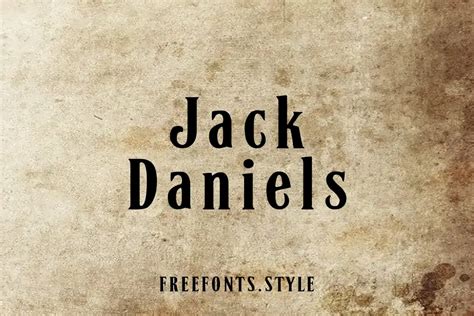
Fonts Jack Daniels. Web jack daniels is a great typeface, this serif typeface supports many international languages. Click to find the best 1 free fonts in the jack daniels style.
Every font is free to download! The jack daniel’s is basically a sour mash tennessee whiskey. Web jack daniels is a great typeface, this serif typeface supports many international languages. Web jack daniels font. Click to find the best 1 free fonts in the jack daniels style. Web looking for jack daniels fonts?
Web looking for jack daniels fonts? Click to find the best 1 free fonts in the jack daniels style. Web jack daniels is a great typeface, this serif typeface supports many international languages. Every font is free to download! Web jack daniels font. The jack daniel’s is basically a sour mash tennessee whiskey.